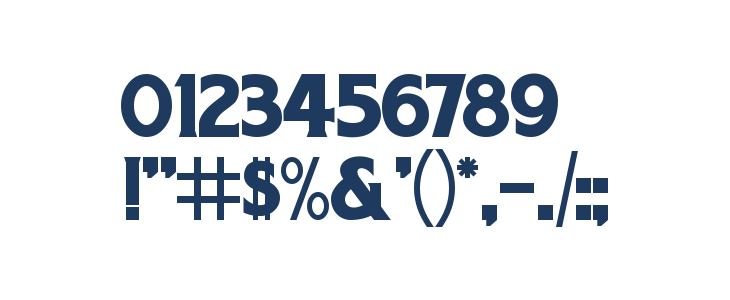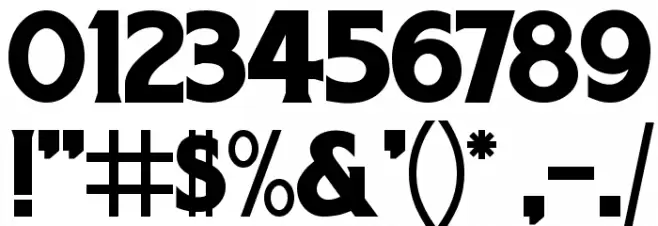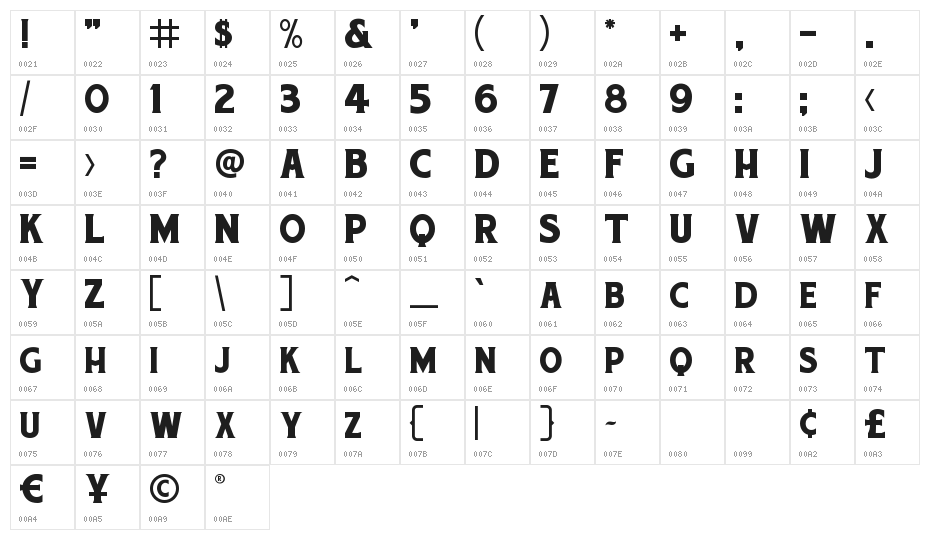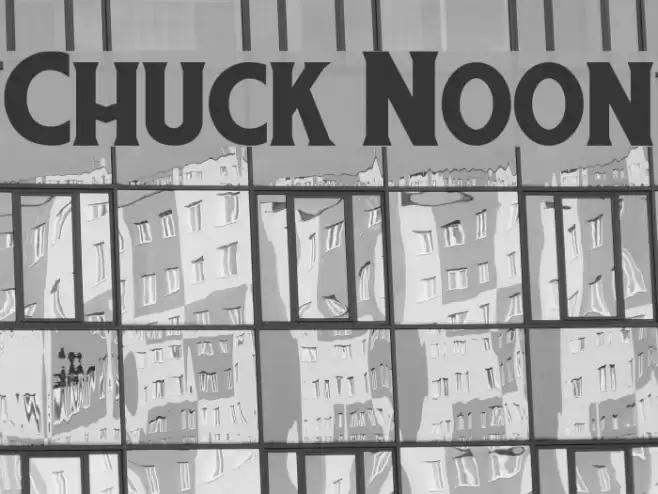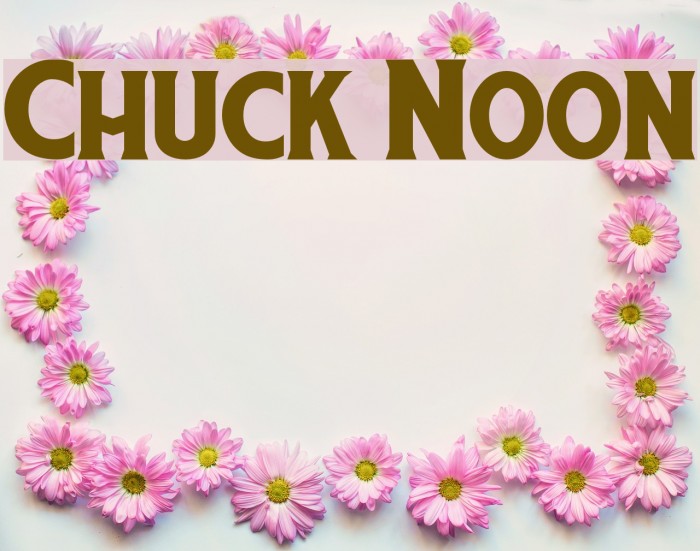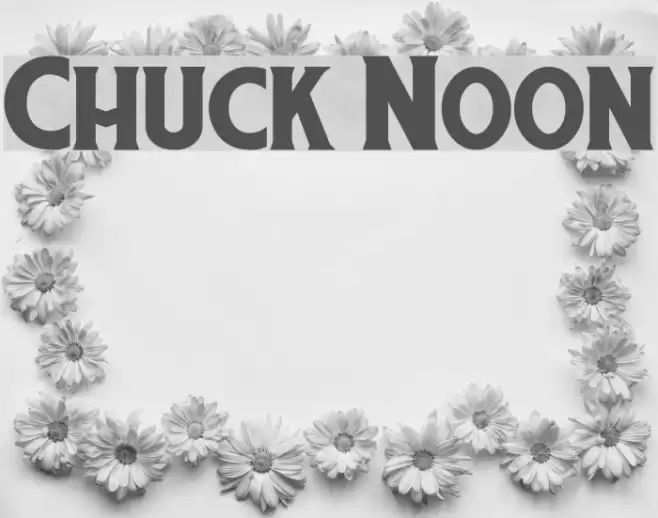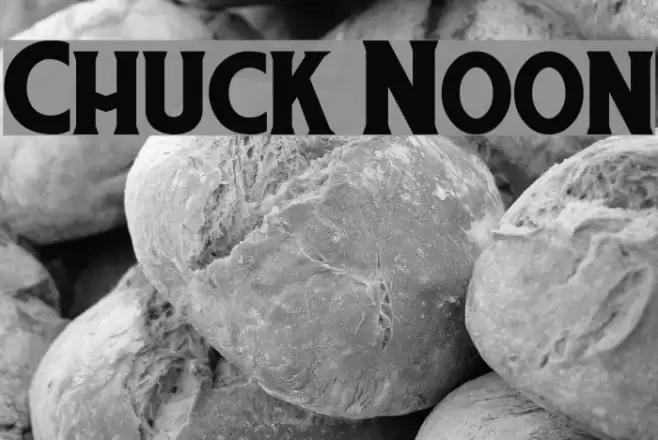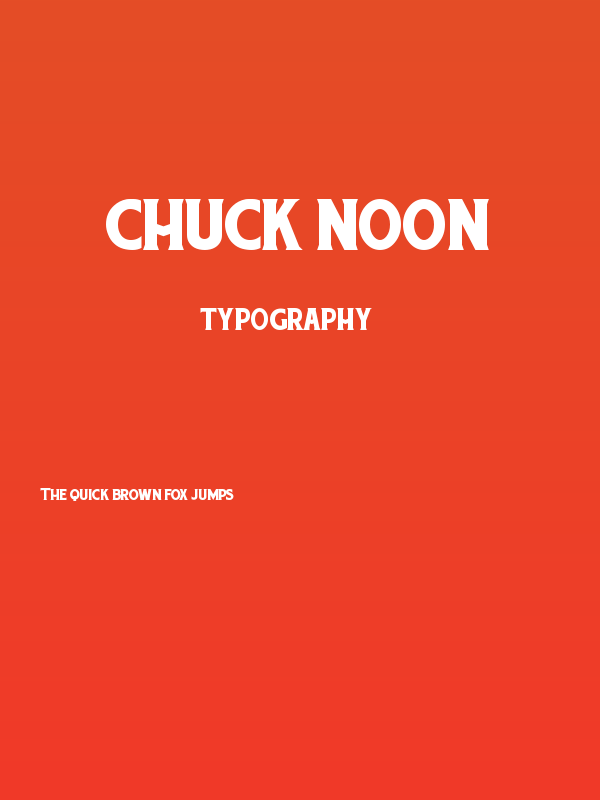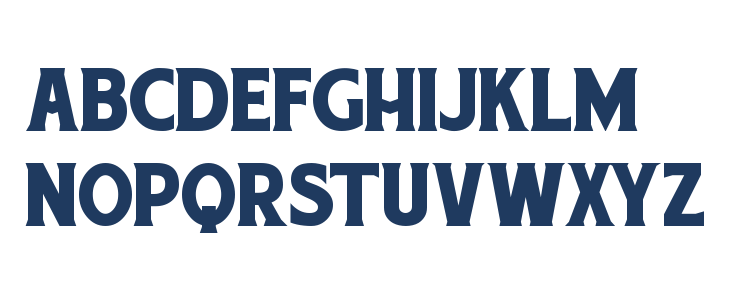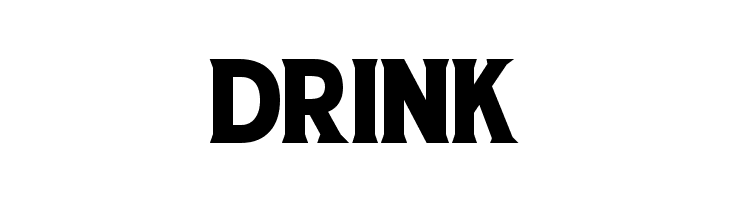
Chuck Noon Font
Chuck Noon Description
This bold and impactful font features strong, thick strokes that convey a sense of power and authority. The characters are well-defined with a slight geometric influence, giving them a modern yet timeless appeal. The uppercase letters are particularly striking, with a consistent height and width that create a cohesive look. The numerals are equally bold, ensuring they stand out in any context. Special characters are designed with the same attention to detail, maintaining the overall aesthetic. This font is perfect for making a statement, whether in print or digital media.
| Proposed Projects | Ideal for headlines, posters, branding, and any project requiring a strong visual impact. |